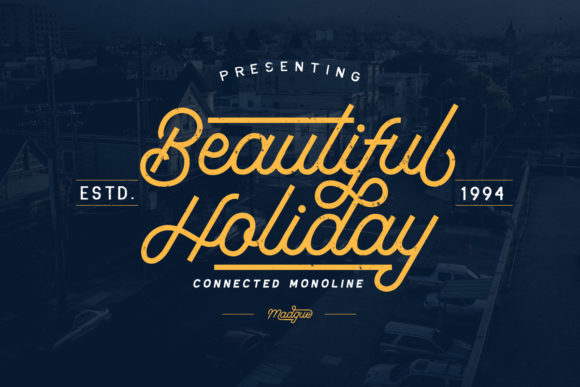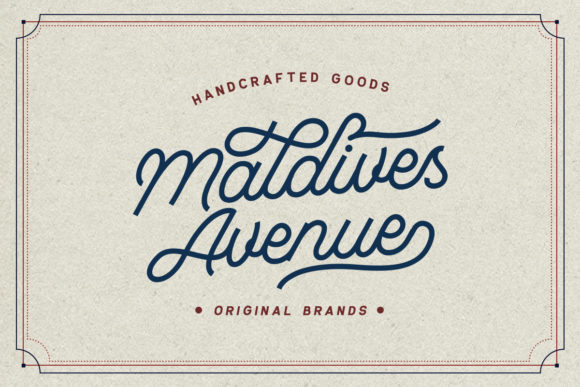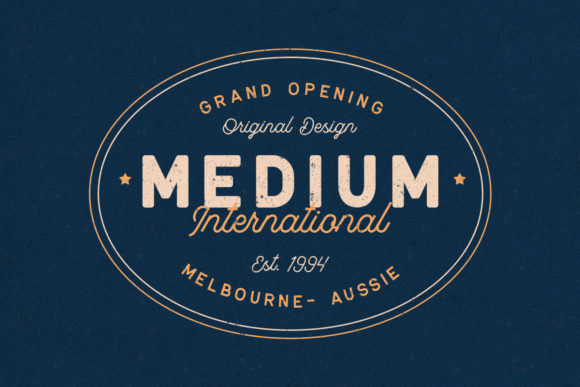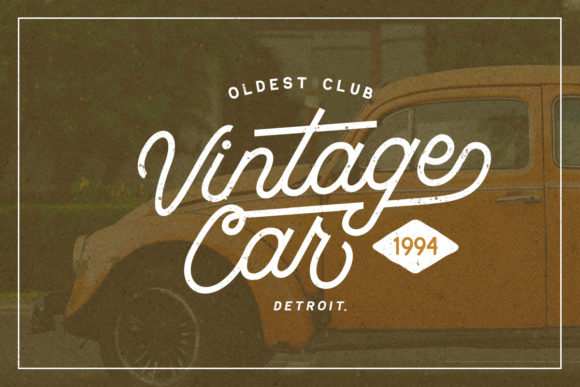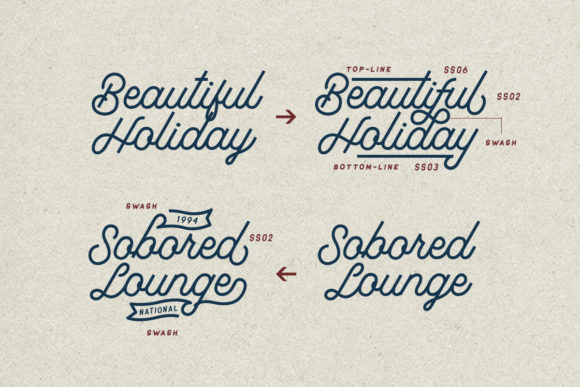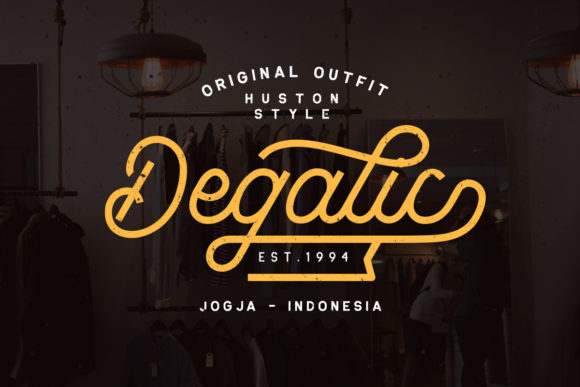
Introduction to Madgue Font
The Madgue is an unique mono line typeface.
It comes in a regular and swash version and includes pre made logos as a bonus .
Madgue Font offers exceptional quality and versatility, making it a valuable addition to your design toolkit. Whether you’re creating for personal projects or commercial use, Madgue Font delivers professional results.